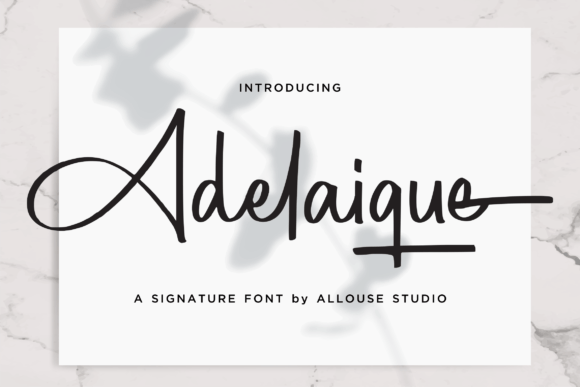
Behold Adelaique, the splendid script font, a creation of allouse.studio. This exquisite font bursts with grace, featuring looping curves, elegant swashes, and striking lines that harmoniously intertwine. Each word composed with Adelaique reflects a mesmerizing balance, captivating the eyes and hearts of those who encounter it.
Embrace the beauty of Adelaique and witness the transformation of your creative projects. Whether you're crafting heartfelt greeting cards, designing stylish magazines, or creating eye-catching headers for your digital platforms, Adelaique effortlessly elevates the aesthetics of your work. Its versatility shines through, adapting seamlessly to the demands of various mediums, including social media and beyond.
Let Adelaique guide your designs, unveiling a world of boundless possibilities. From personal expressions to professional endeavors, this font adds a touch of elegance and sophistication that resonates with audiences. Its enchanting style captivates the attention of readers, leaving a lasting impression that lingers in their minds.
Immerse yourself in the allure of Adelaique, a font that embodies creativity, beauty, and boundless potential. Unlock your imagination and embark on a typographic journey where your words come alive, igniting emotions and leaving an indelible mark on hearts and minds. Experience the magic of Adelaique, and let your designs flourish with unparalleled elegance and charm.